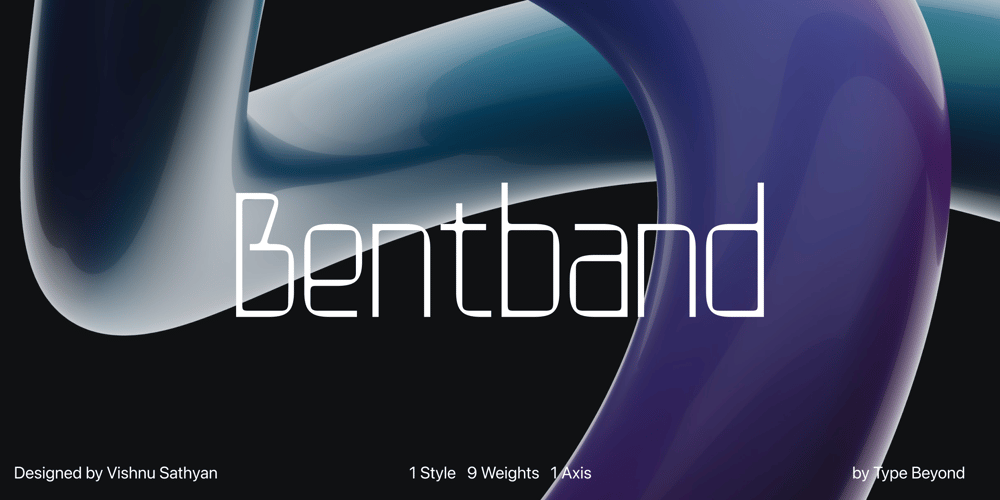
Bentband
Bentband font
Bentband Font Family was designed by Vishnu Sathyan and published by Vishnu Sathyan. Bentband contains 9 styles and family package options. Introducing “Bentband” – a unique and playful typeface inspired by the way a pipe bends. This typeface features curved lines, bold and geometric shapes that tries to mimic a pipe. With its distinct style, Bentband is perfect for creating eye-catching headlines and titles that stand out. The font is available in both uppercase and lowercase letters, a range of symbols and numerals. Bentband is available in 66 languages.